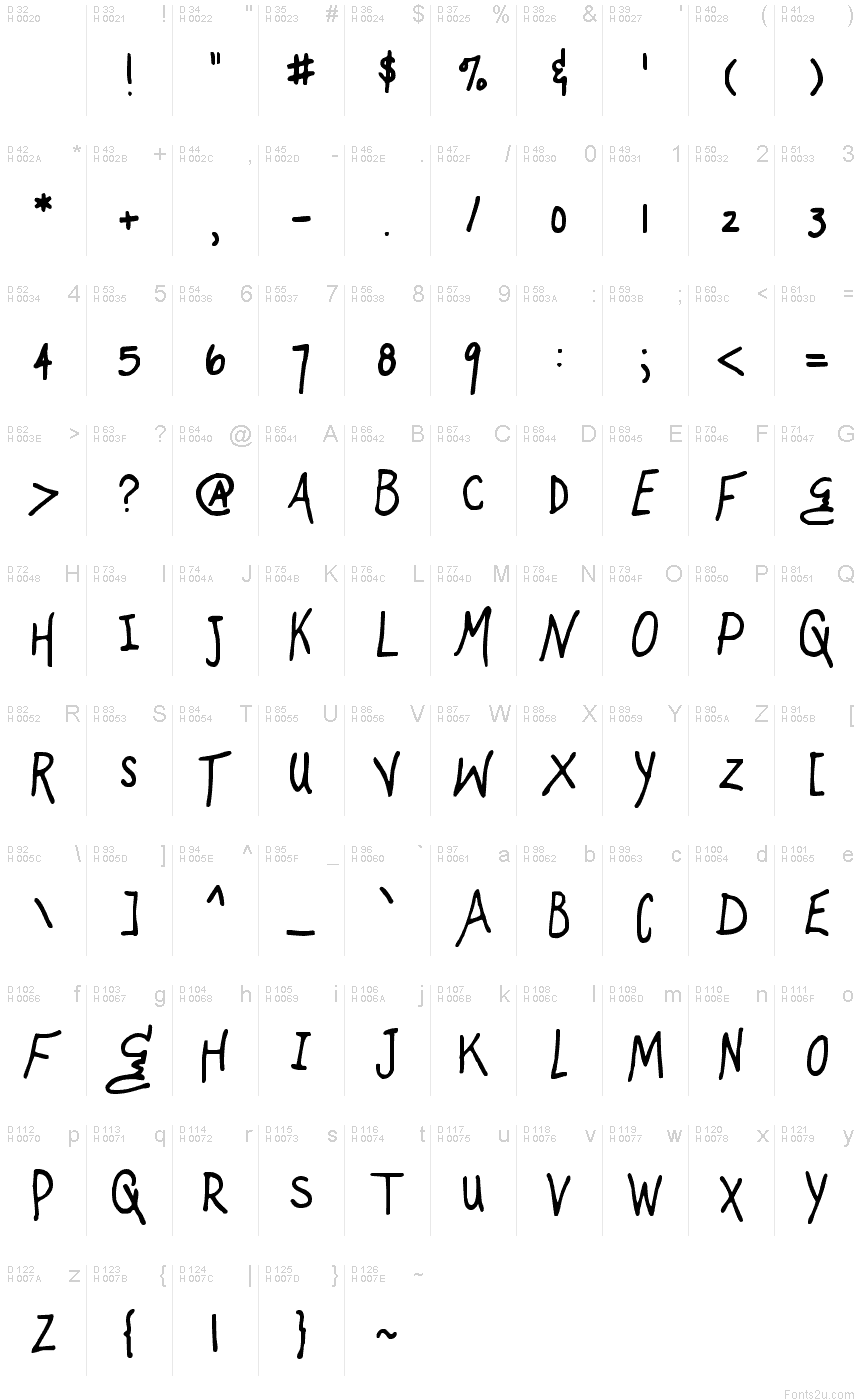
Mugnuts
Mugnuts font by Stimul Eye Fonts is a free handwritten font with tall, uneven strokes and loose, looping forms that give it a quick marker-drawn feel. The letters keep a rough, informal rhythm, with rounded ends and a slightly stretched shape that makes the wordmark feel more scrawled than polished.
Mugnuts works well for posters, logo accents, packaging, cafe menus, quote graphics, and casual invitations where a hand-drawn line can carry the design. This free font brings enough character to support short display text without feeling stiff, so it fits branding pieces, social posts, and craft labels that need an easy, personal touch.